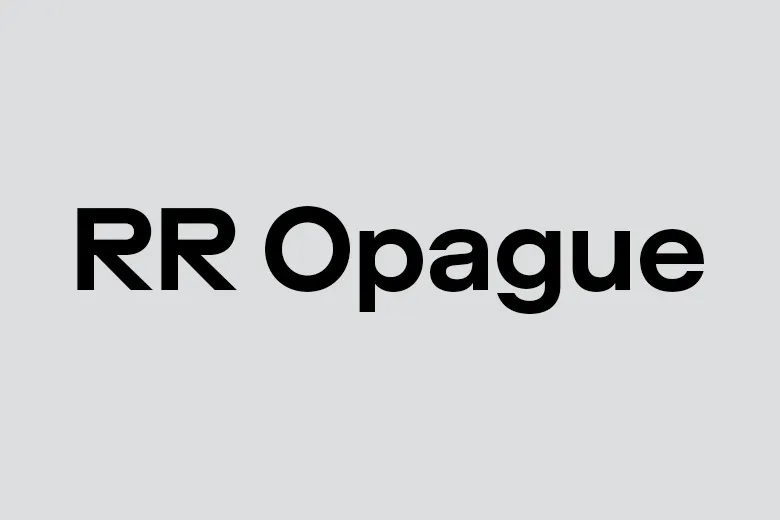
RR Opague Font Family
The name of the considered display font is RR Opague; it is a geometric sans serif typeface with the neutral nature and delicate metrics. Due to the restraint of its colors and the absence of vulgarity in its aesthetics, Opague glorifies the power to enslave or surrender in equal measure in any scale, be it large or small. The geometry and apertures of Opague are a process of learning lessons from historical references¹ and an insatiable adherence to brutal simplicity without aping the past nor pushing it further.
The circular ‘O’ and enforced horizontal lines formed from the apertures and middle height shape the character of Opague. Q. These punctuated lines of yours are sharp and exacting. Perhaps to ensure there is a brutal order where there is none and everything is held in place, seemingly with such even force.
These childish pranks come in nine weights, of which each has its italic version, at an angle of 15° which is rather oblique. With the help of the Variable font format, this 18-style banger expands into an almost infinite versatility in regards to the typographic options beyond a limited set of weights and angles.